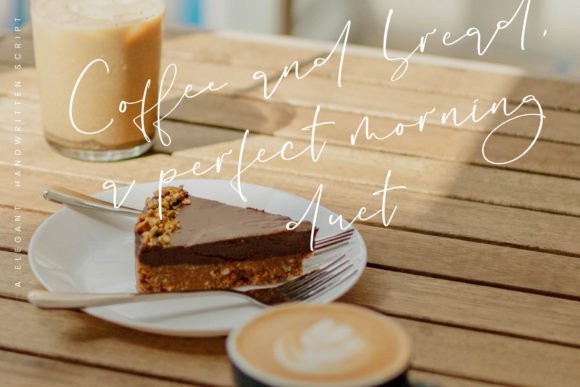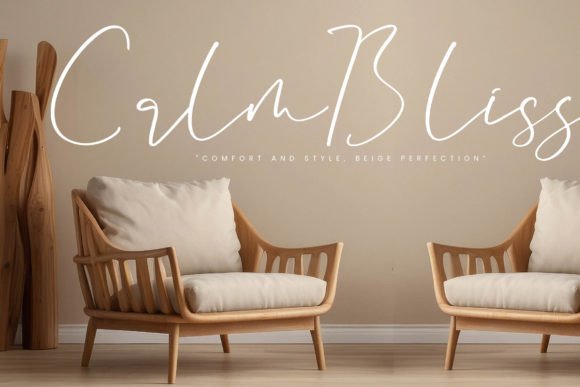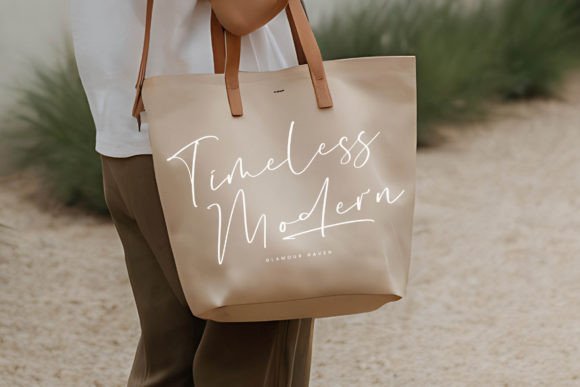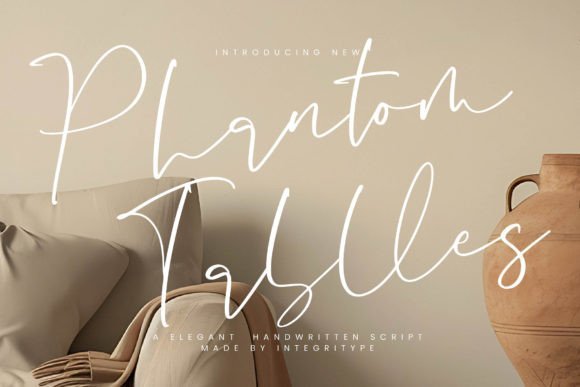
Introduction to Phantom Tablles Font
Phantom Tablles – Handwritten Script Font perfect for any project like logos, branding projects, homewares designs, product packaging, mugs, quotes, posters, shopping bags, t-shirts, covers books, business cards, invitation cards, greeting cards, labels, photography, watermarks, special events and all your other luxury projects that require a premium taste.
Key Features of Phantom Tablles Font
Why Choose Phantom Tablles Font?
Phantom Tablles Font offers exceptional quality and versatility, making it a valuable addition to your design toolkit. Whether you’re creating for personal projects or commercial use, Phantom Tablles Font delivers professional results.